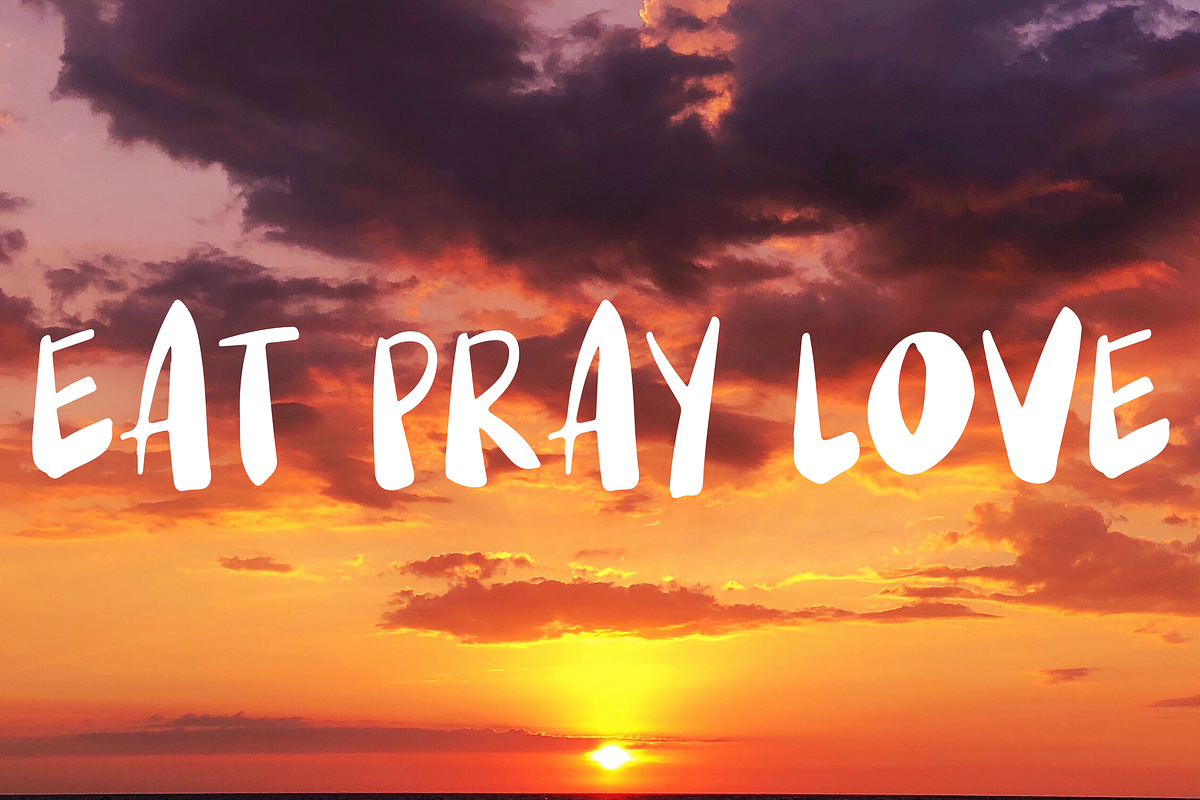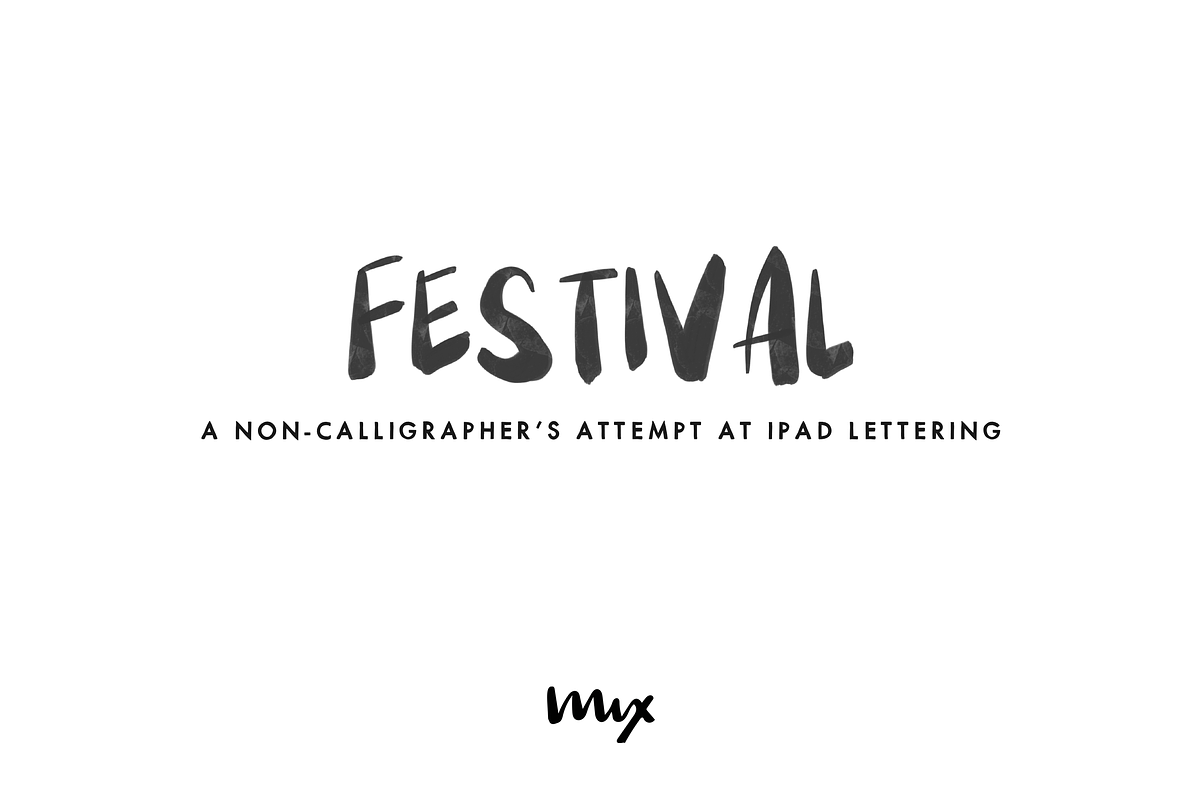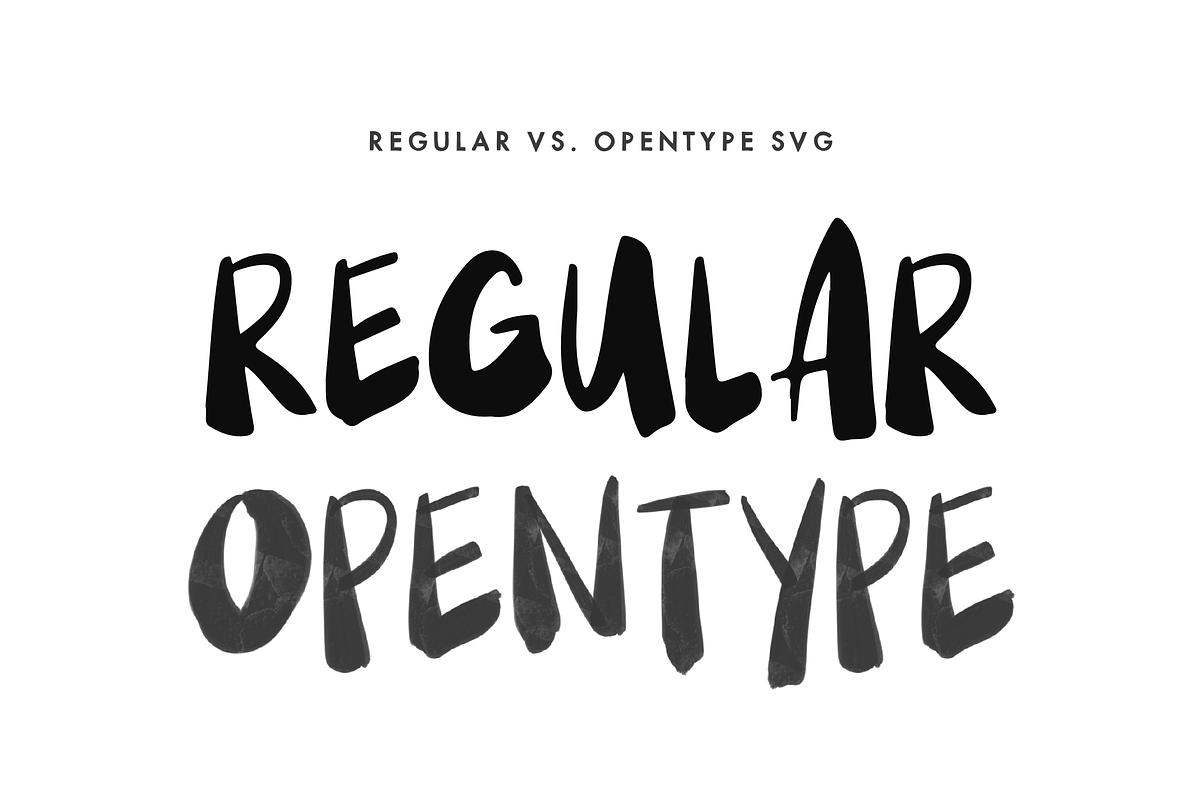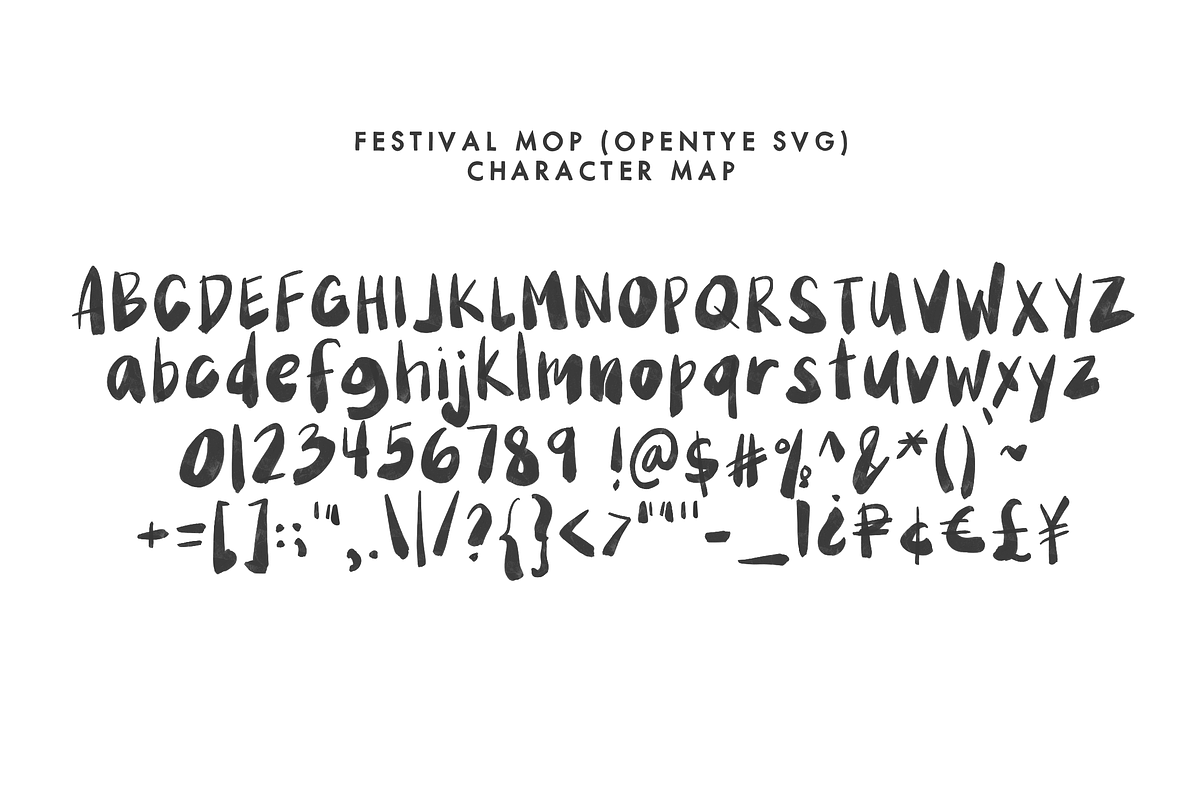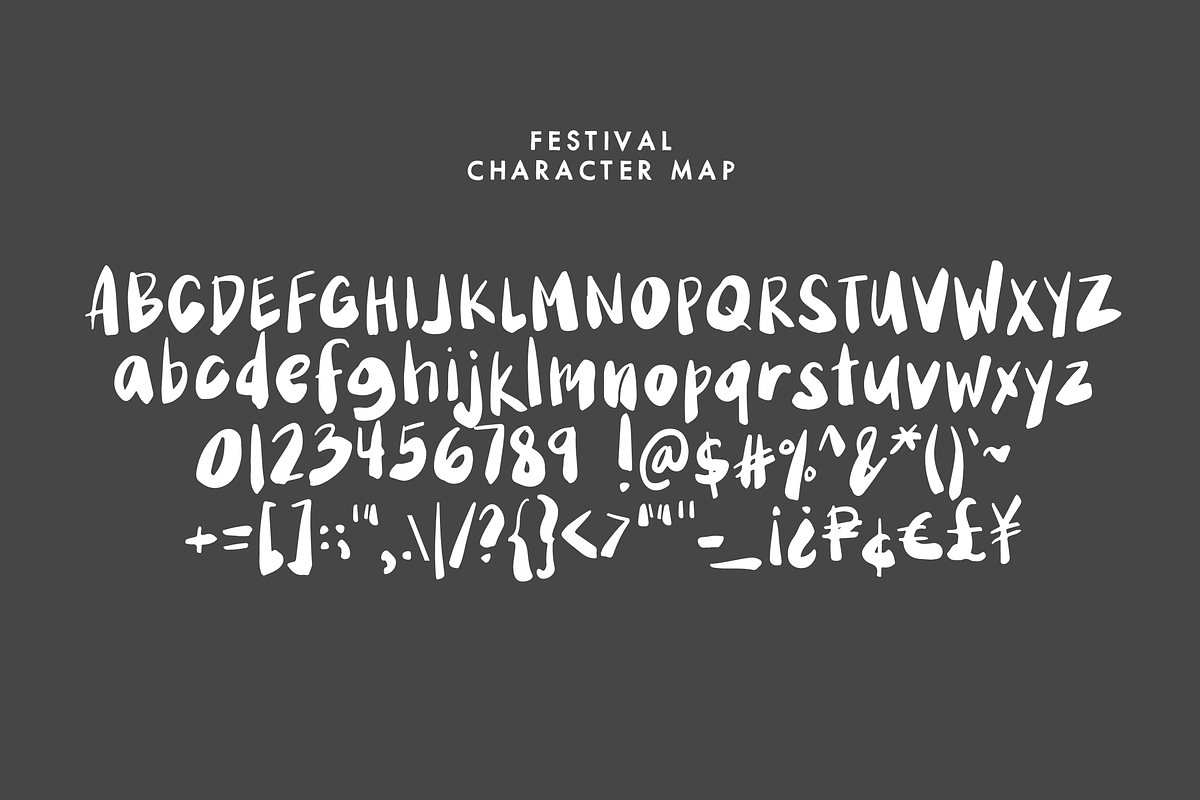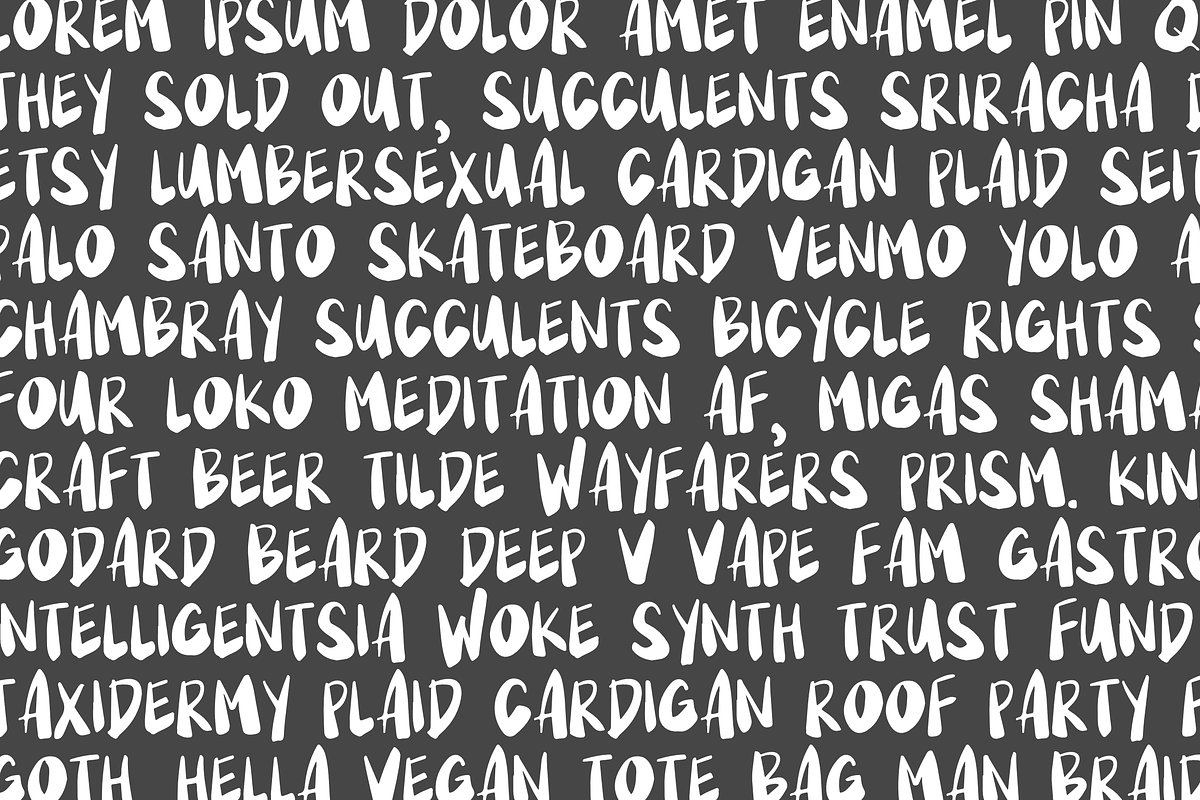
Festival — A Handwritten Font Duo
MIX FESTIVAL, includes MIX FESTIVAL MOP, an OpenType SVG Font file. This font type maintains all the details, color, and texture that the glyphs had when originally written out. Please note that this format currently requires at least Photoshop CC 2017 or Illustrator CC 2018 to work. It does work on some (not all) MAC OS applications such as Keynote, Pages, and Microsoft Office. We cannot guarantee compatibility with other applications.
MIX FESTIVAL was handwritten on Procreate for iPad Pro with an Apple Pencil. The quick doodles were converted into this pair of fonts. This font is perfect for handmade and DIY themed projects.
Mix Festival - OTF of the slightly cleaned up standard vector font
Mix Festival Mop - OpenType SVG font of the initial doodles on Procreate, using a brush from here: